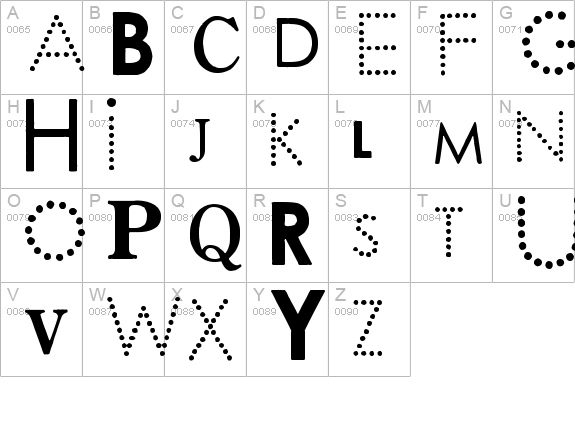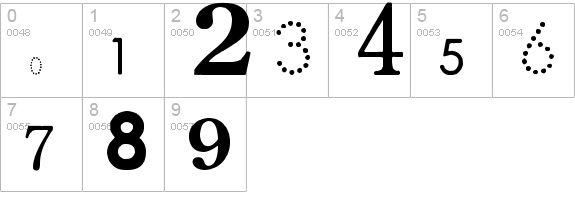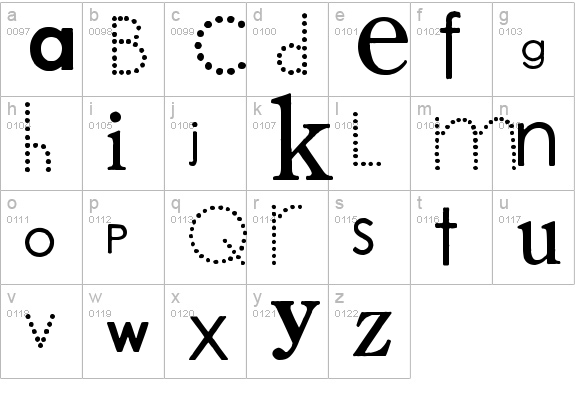
PAss the CheX Font Details
PAss the CheX font is a modern and stylish typeface that exudes elegance and sophistication. With its clean lines and smooth curves, this font is perfect for a wide range of design projects, from branding to packaging to social media graphics. The unique character of PAss the CheX font will make your text stand out and leave a lasting impression on your audience. What makes PAss the CheX font even more appealing is that it is available for free download at FontsMarket.com. This means that you can add this versatile and eye-catching font to your collection without any cost. Whether you are a designer looking to enhance your projects or an individual wanting to add a touch of creativity to your personal creations, PAss the CheX font is a fantastic choice that won't break the bank. Download it today and start using this stunning font to elevate your designs!